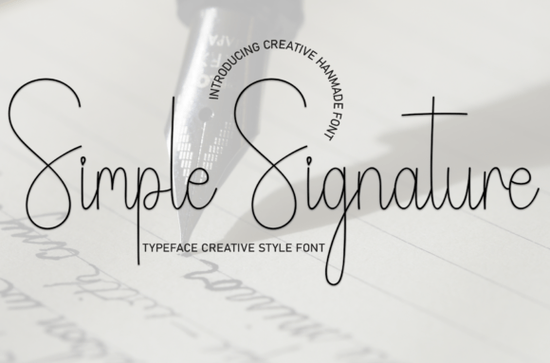
If you're looking for a handwritten font that feels personal without being overly fussy, the Simple Signature Font might be exactly what your next project needs. It’s clean, cheerful, and carries just enough personality to add warmth to wedding invitations, greeting cards, gift tags, or even small business branding without overwhelming your layout.
Handwritten fonts can sometimes lean too casual or too ornate, but Simple Signature strikes a nice middle ground. Its strokes mimic natural pen movement, giving it an authentic feel that still reads clearly at smaller sizes. That balance makes it especially useful for crafters and print-on-demand sellers who want their designs to feel handmade but remain professional.
What kinds of projects work best with Simple Signature?
This font shines in contexts where you want to convey friendliness and approachability. Think:
- Wedding stationery – from save-the-dates to place cards
- Thank-you notes or birthday cards with a personal touch
- Small-batch product labels for soaps, candles, or baked goods
- Social media quotes or Instagram story overlays
- DIY home decor like framed prints or chalkboard signs
Because it’s not overly swirly or dramatic, it pairs well with minimalist layouts. You can easily combine it with a clean sans-serif for contrast imagine Simple Signature for names or short phrases, and something like Helvetica or Montserrat for supporting text.
How does it compare to other script fonts?
Not all script fonts are created equal. Some, like Saturday Font, lean more calligraphic with elegant flourishes great for formal events but less versatile for everyday use. Others, such as Farmhouse Pumpkin, have a rustic, textured vibe that fits seasonal or country-themed designs.
Simple Signature sits comfortably in the “casual elegance” zone. It’s closer in spirit to Autography, which also mimics real handwriting, though Autography has slightly bolder strokes. If you prefer something even more understated, Nothing Over Font offers a barely-there script that’s almost typewriter-like. And for those who love delicate details, Wonderful Butterfly adds whimsical loops perfect for children’s themes or spring designs.
Each of these has its place but if you need one go-to handwritten font that works across multiple occasions without feeling dated or niche, Simple Signature is a reliable choice.
Tips for using handwritten fonts effectively
Even the friendliest font can look messy if not used thoughtfully. Here’s how to get the most out of Simple Signature:
- Avoid long paragraphs. Handwritten styles are meant for headlines, names, or short messages not body text.
- Check spacing. Some words may need manual kerning (letter spacing adjustment) to prevent awkward gaps or overlaps.
- Use uppercase sparingly. This font’s lowercase letters carry most of its charm; all-caps can feel stiff.
- Pair with plenty of white space. Let the font breathe so its organic shape stands out.
Also, always preview your design at the actual print or screen size. A font that looks lovely on a large mockup might become illegible on a tiny sticker or phone thumbnail.
Who should consider this font?
Simple Signature is especially helpful for:
- Print-on-demand sellers creating personalized mugs, T-shirts, or wall art
- Small wedding vendors (like bakers or florists) designing custom packaging
- Crafters making handmade cards or party decorations
- Teachers or parents labeling classroom supplies or kids’ lunchboxes
It’s not a “designer-only” tool you don’t need advanced software skills to use it well. Most design platforms (Canva, Adobe Express, Cricut Design Space) support .OTF or .TTF files, so installation is straightforward.
Quick checklist before using Simple Signature Font
- ✅ Confirm your project needs a friendly, readable handwritten style
- ✅ Pair it with a simple sans-serif for balance
- ✅ Test readability at final output size
- ✅ Consider complementary fonts like Autography if you need variety
With its unpretentious charm and practical versatility, Simple Signature Font is the kind of tool you’ll reach for again and again whether you’re crafting a heartfelt note or building a small brand identity.